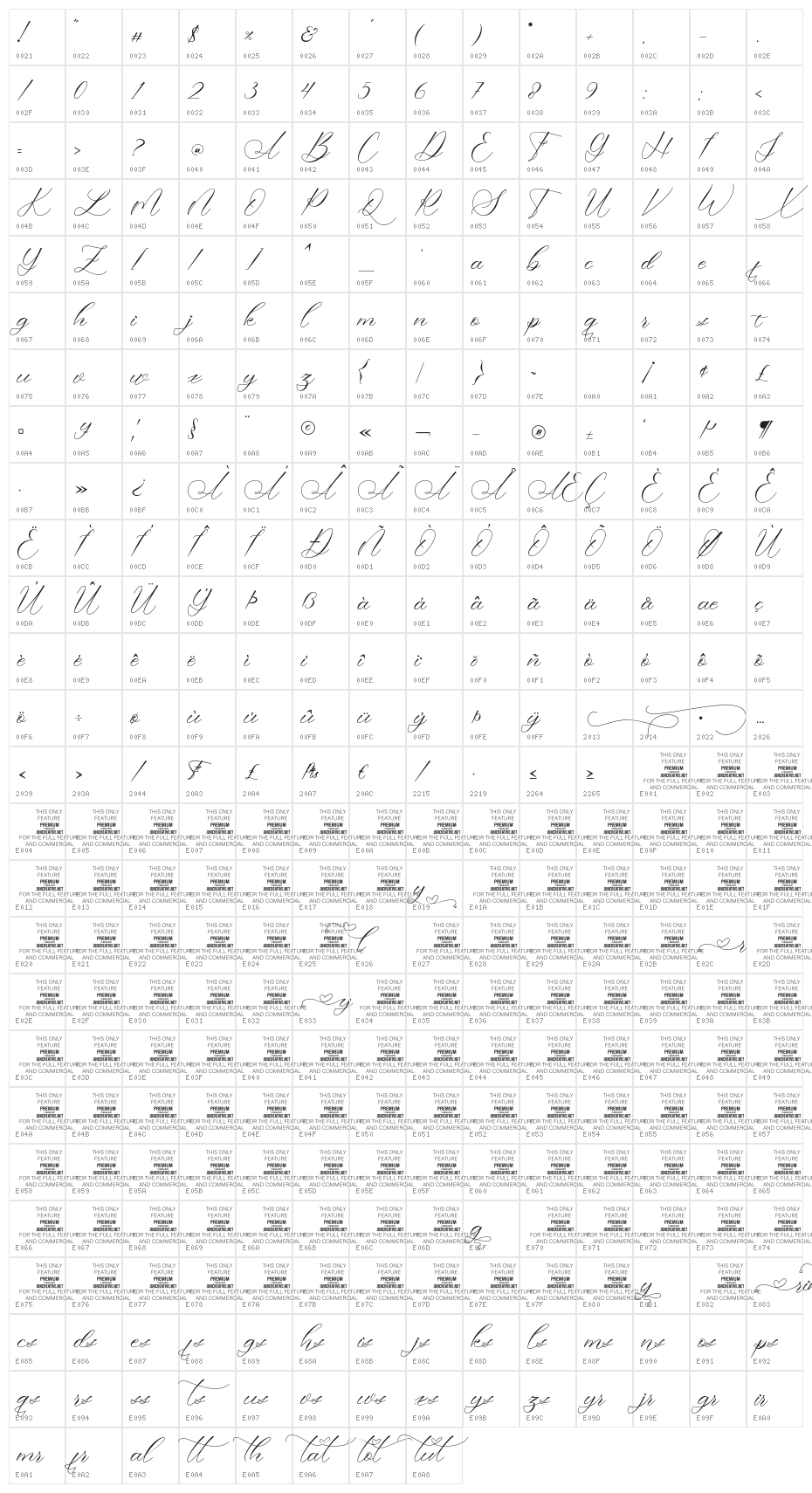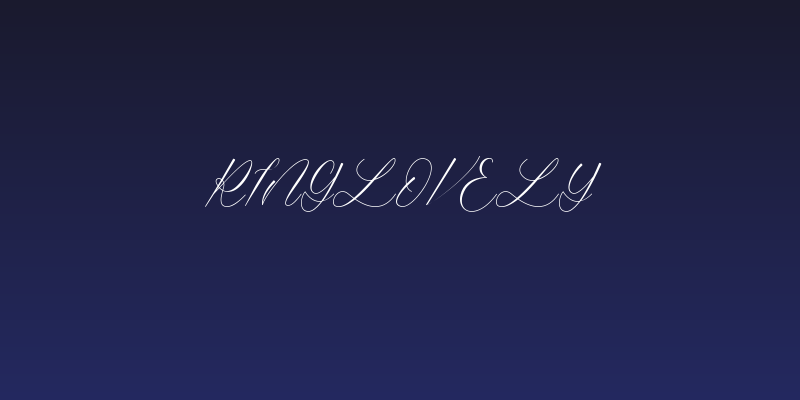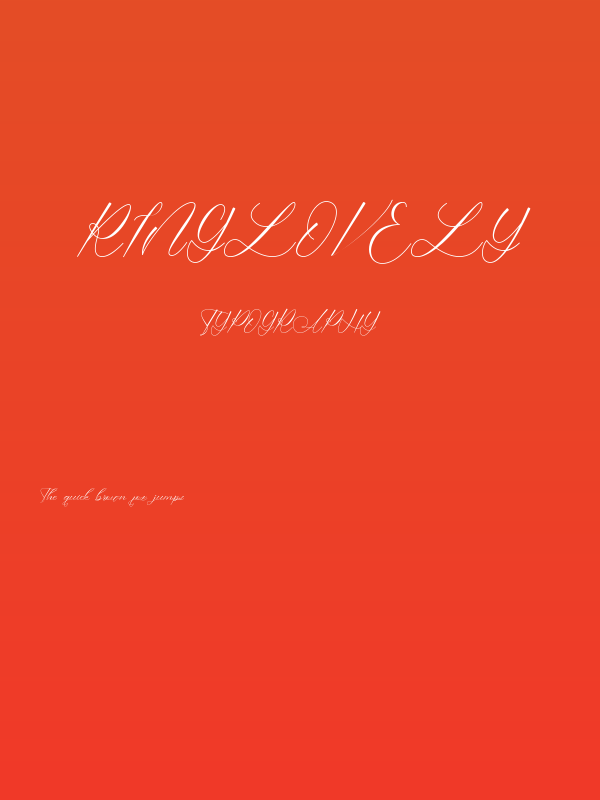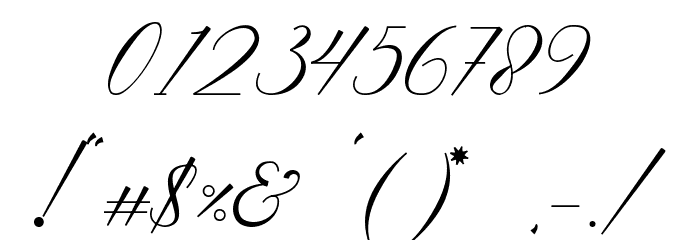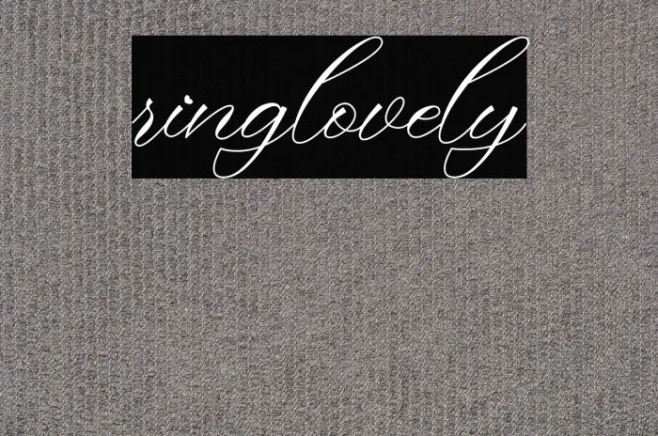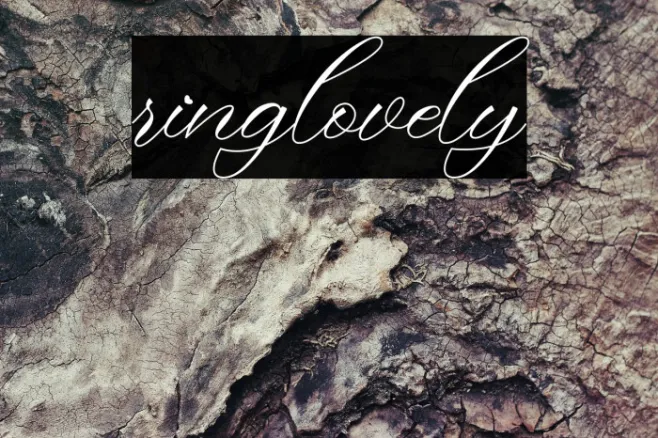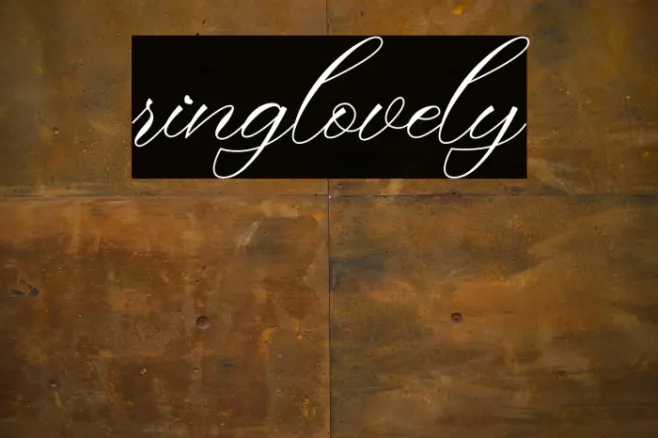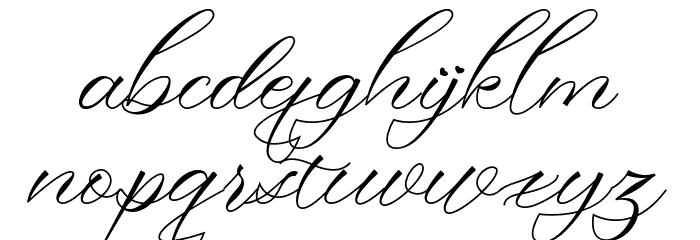
ringlovely Font
ringlovely Description
This elegant script font features fluid, flowing strokes that mimic the natural movement of handwriting. The uppercase letters are characterized by their graceful loops and swirls, while the lowercase letters maintain a consistent, cursive style. The numerals are designed with a similar flair, adding a touch of sophistication. Special characters are seamlessly integrated, maintaining the overall aesthetic. This font exudes a sense of elegance and refinement, making it ideal for formal invitations, branding, and decorative purposes.
| Use Case | Invitations, Branding, Decorative text |
| Proposed Projects | Ideal for wedding invitations, luxury branding, greeting cards, and decorative signage. |